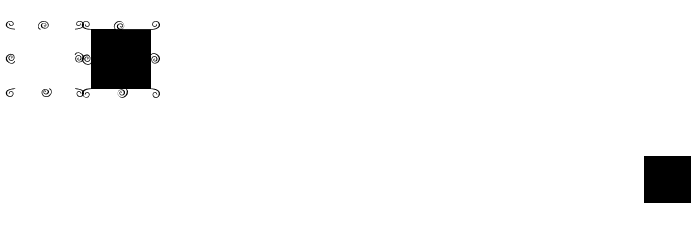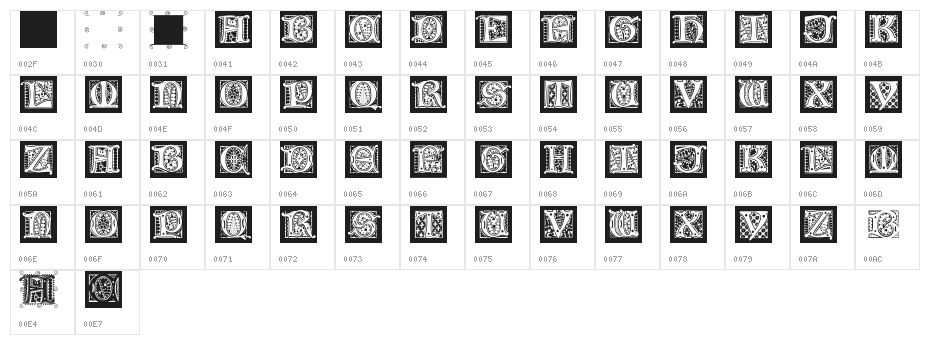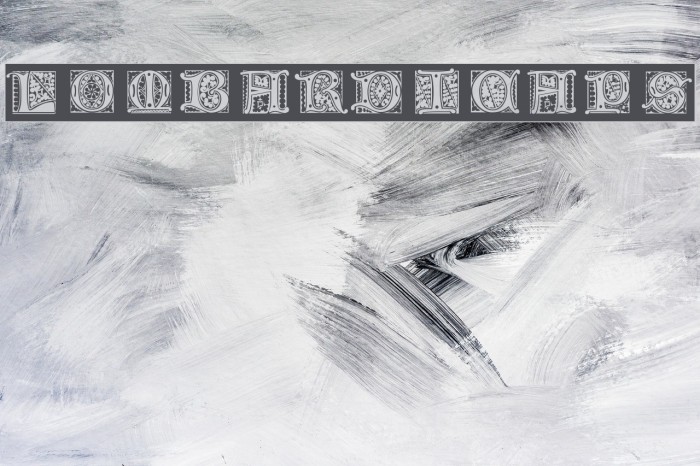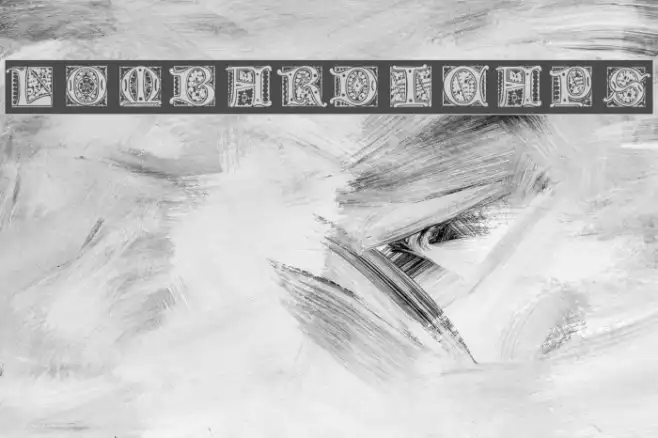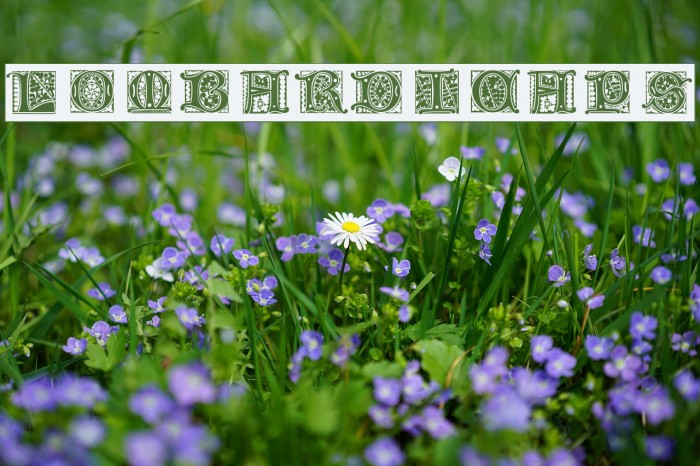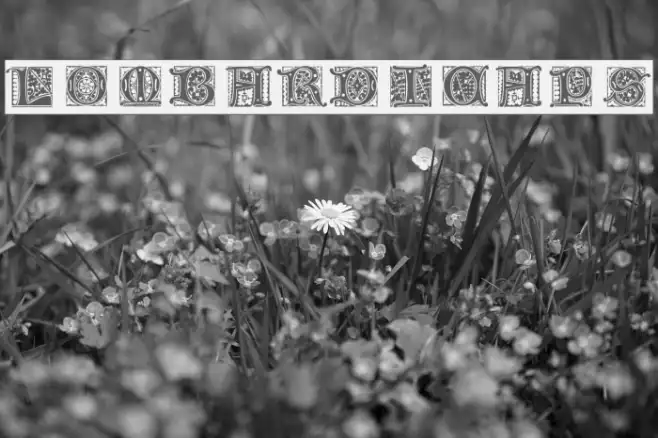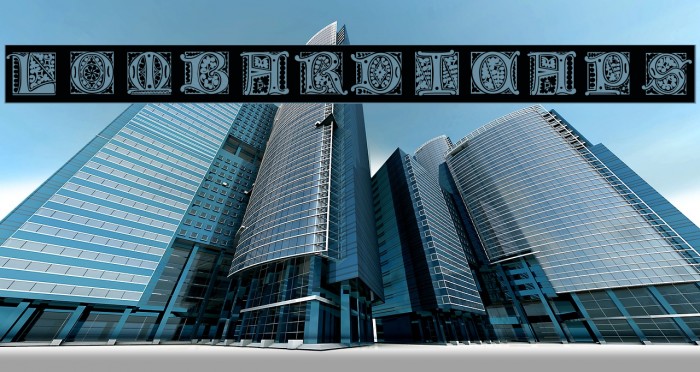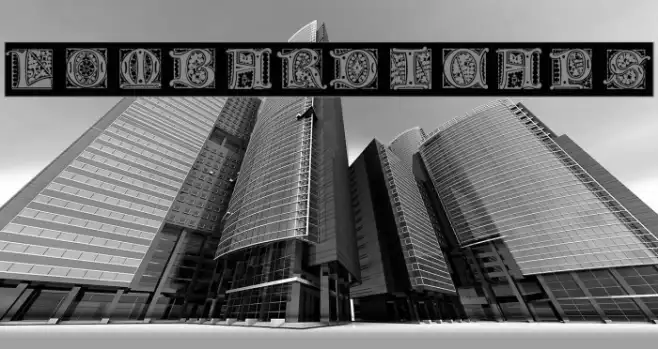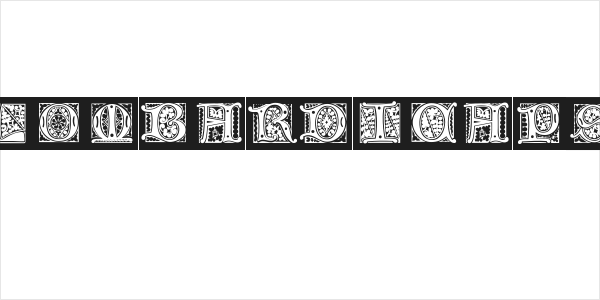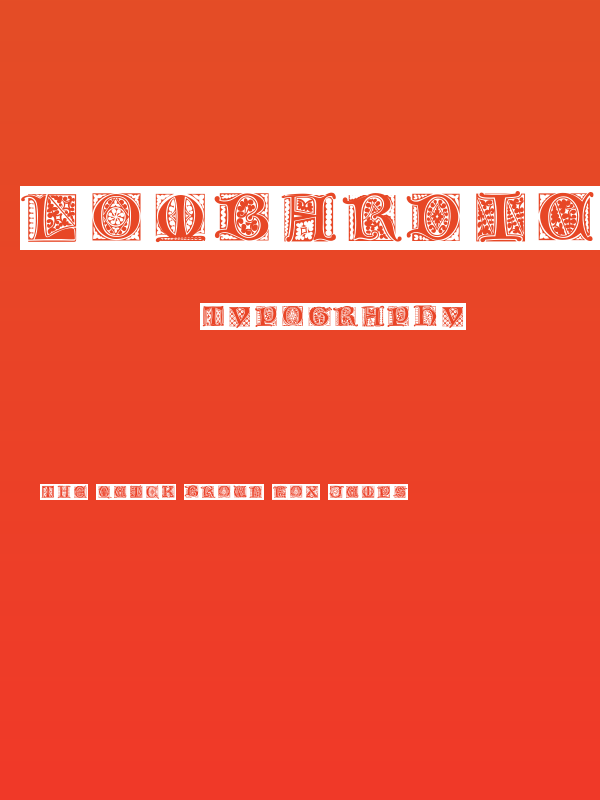
LombardiCaps Font
LombardiCaps Description
This ornate and decorative font features intricate designs within each letter, reminiscent of illuminated manuscripts. Each character is encased in a square, with elaborate patterns and embellishments that give it a luxurious and historical feel. The font is highly detailed, with each letter showcasing unique artistic elements, making it ideal for projects that require a touch of elegance and sophistication. The overall appearance is bold and eye-catching, perfect for creating a statement in any design.
| Overall Style | Vintage, Decorative |
| Use Case | Logos, Headlines, Decorative elements |
| Proposed Projects | Ideal for wedding invitations, historical-themed projects, luxury branding, and decorative book covers. |